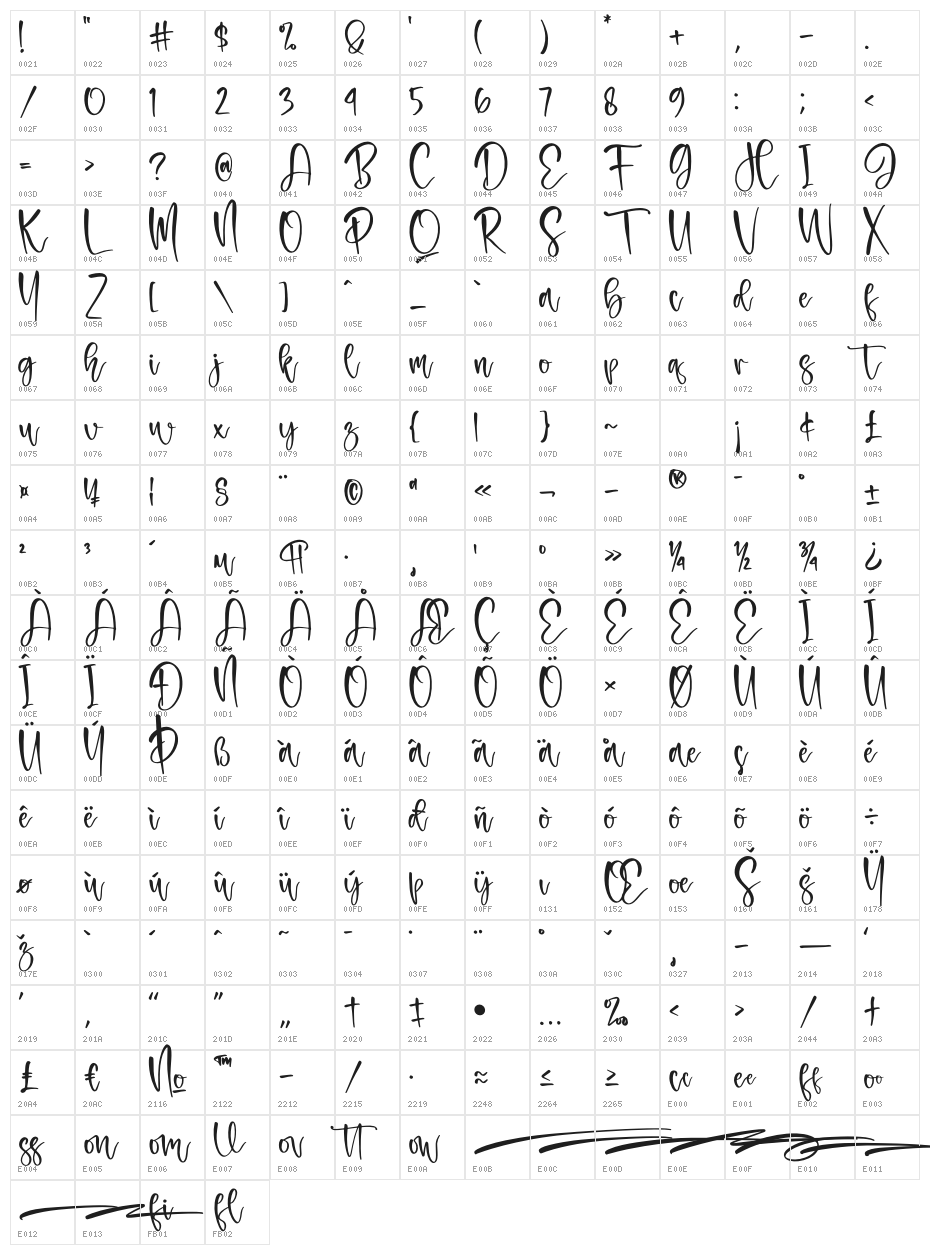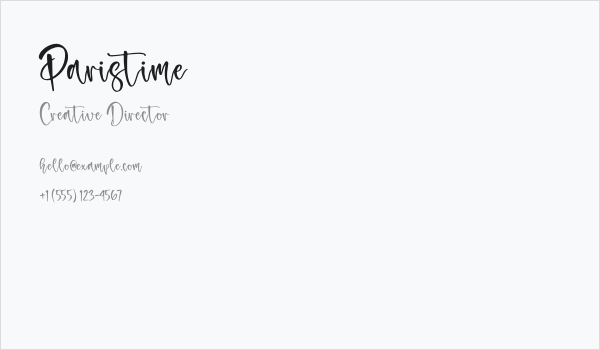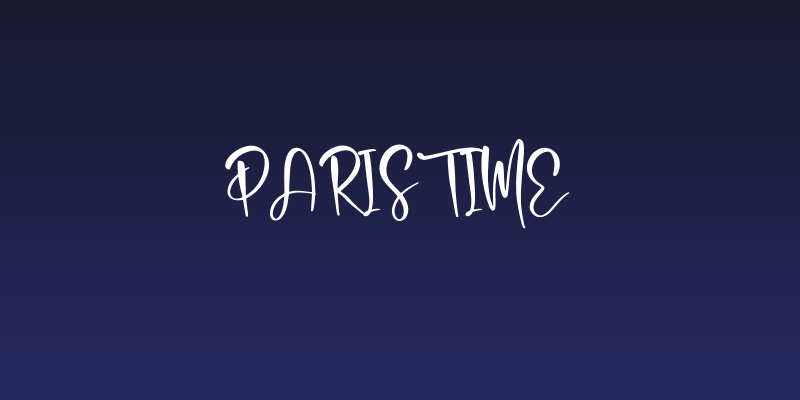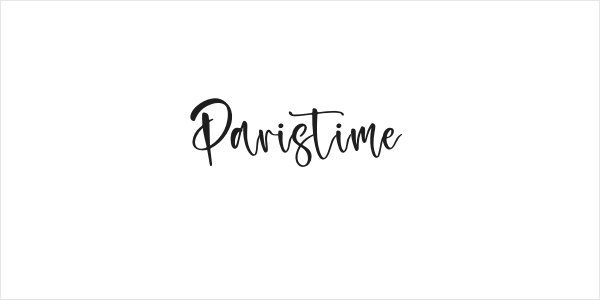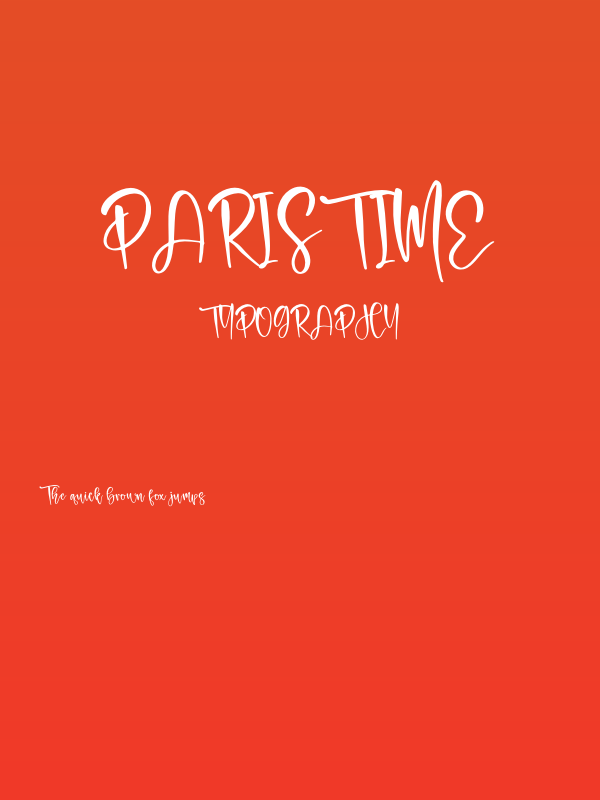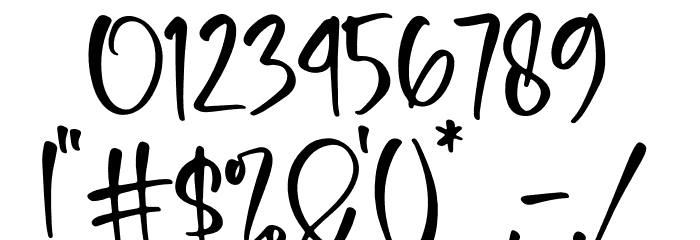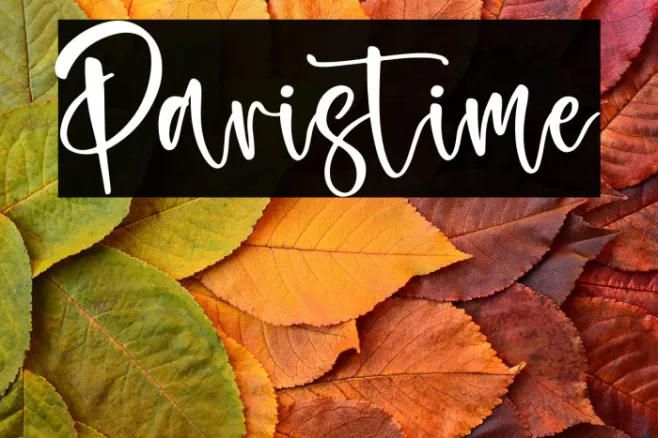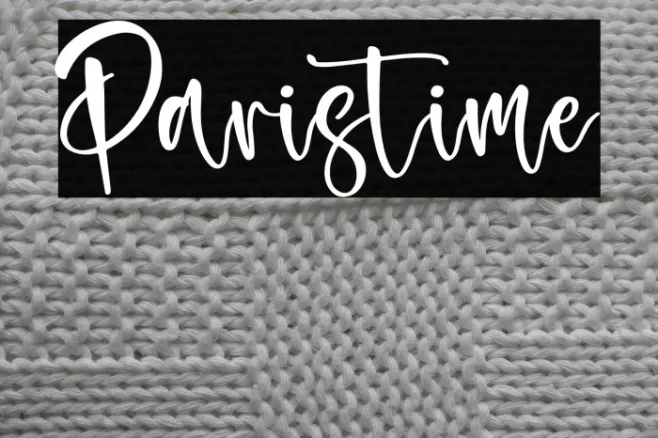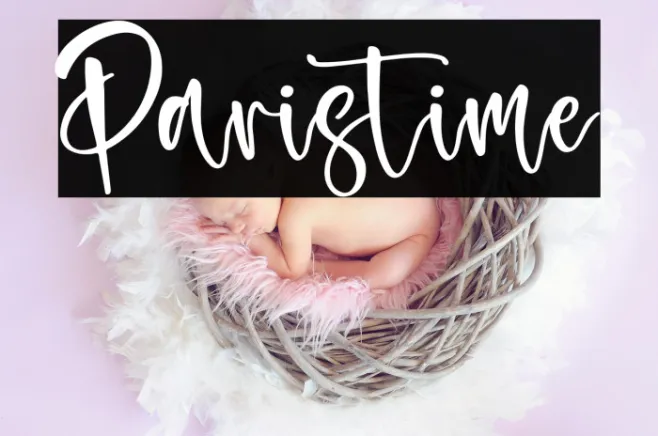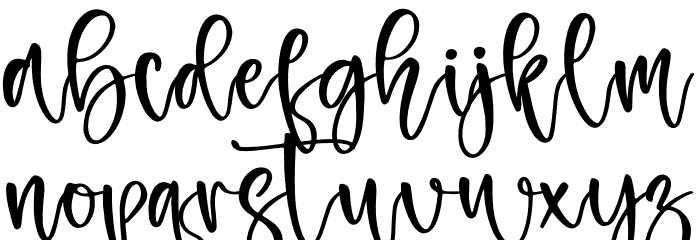
Paristime Font
Paristime Description
This font features a lively and expressive handwritten style, characterized by its fluid and dynamic strokes. The uppercase letters exhibit a playful yet elegant flair, with varying stroke widths that add a sense of movement and personality. The lowercase letters maintain a consistent flow, complementing the uppercase with their rounded and slightly exaggerated forms. Numbers and special characters are crafted with the same attention to detail, ensuring a cohesive look across all elements. This font's overall appearance is both modern and whimsical, making it suitable for creative and informal applications.